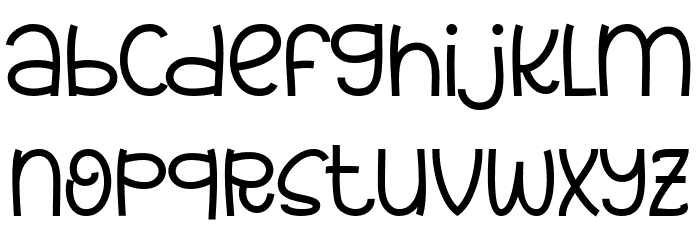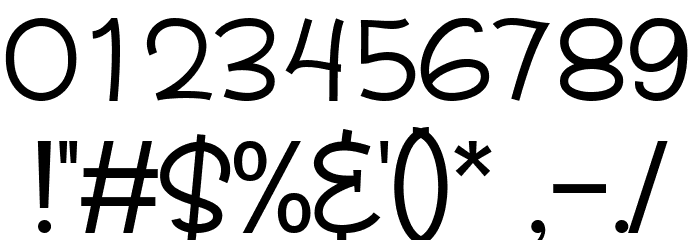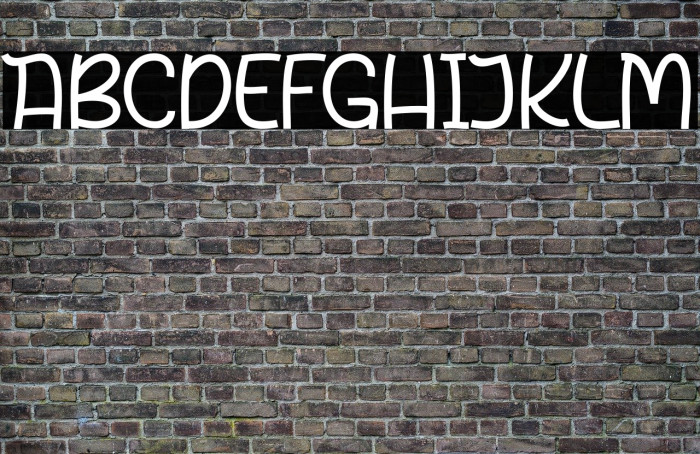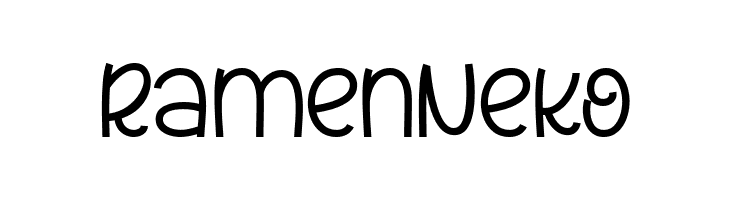
Ramen Neko Font
This playful and whimsical font features rounded edges and a hand-drawn aesthetic, giving it a friendly and approachable feel. The characters are slightly irregular, adding to its charm and uniqueness. The uppercase and lowercase letters maintain a consistent style, with a moderate stroke width that ensures readability. The numerals and special characters are designed to match the overall playful theme, making this font suitable for creative and informal projects. Its distinct style makes it stand out, while still being versatile enough for various uses.
A playful, hand-drawn font with rounded edges and a whimsical style.
- Proposed Projects: Ideal for children's books, playful branding, greeting cards, and creative posters.
- Overall Style: Playful
- Use Case: Headlines, Logos, Creative projects